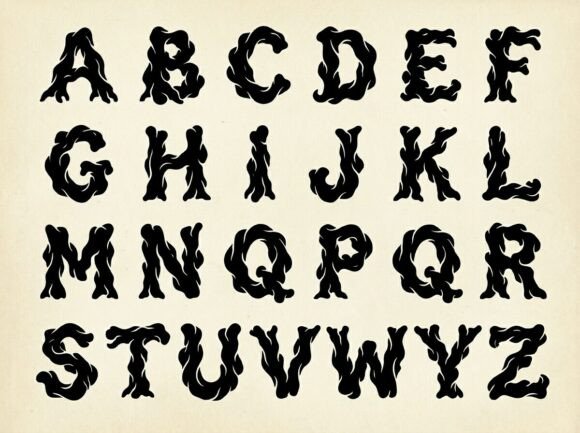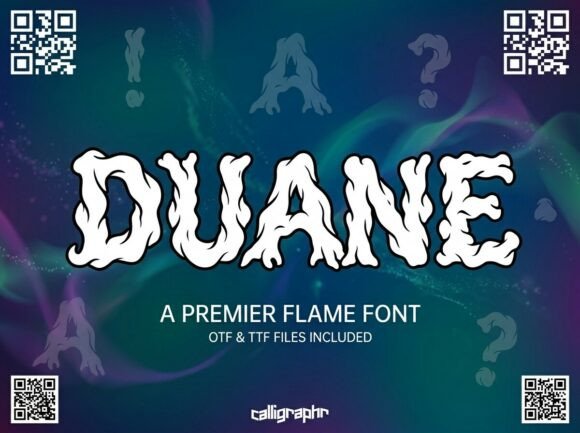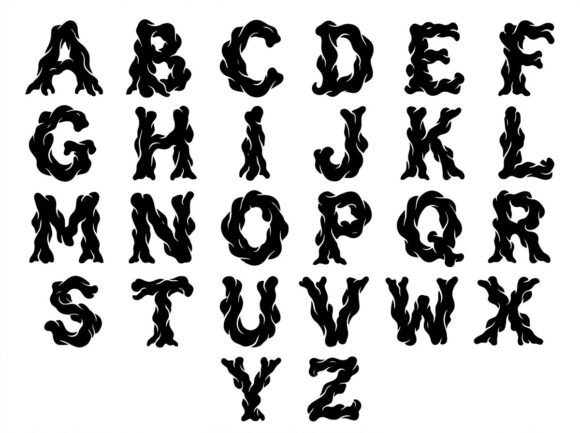
Ignite Your Creative Projects with Duane: A Premium Display Font
In the world of typography, a font can make or break a design. For creative projects that demand attention and exude energy, Duane, a premium display font, is the perfect choice. Characterized by its massive visual weight and liquid, “melting” silhouette, Duane is a bold typeface that features heavy, organic letterforms with soft, undulating outlines. This unique combination evokes a sense of fluid energy and psychedelic motion, making it an exceptional choice for designers and crafters looking to add a touch of creativity to their work.
The Unique Characteristics of Duane
Duane’s design is centered around its consistent weight and mesmerizing wavy contours. The font’s bold, organic letterforms are crafted to provide a sense of fluid energy, giving your designs a dynamic and vibrant feel. The soft, undulating outlines add a touch of sophistication, making Duane perfect for retro-inspired branding, high-energy apparel graphics, vibrant music festival posters, and bold digital headers.
Perfect for Retro-Inspired Branding
Duane’s unique design makes it an ideal choice for retro-inspired branding projects. The font’s bold, liquid silhouette and wavy contours evoke a sense of nostalgia, transporting your audience back to the vibrant and energetic world of the 60s and 70s. Whether you’re designing a logo, packaging, or advertising materials, Duane adds a touch of playfulness and creativity to your brand, making it stand out in a crowded market.
Elevate Your Apparel Graphics with Duane
For designers and crafters working on apparel graphics, Duane is a game-changer. The font’s bold, eye-catching design makes it perfect for t-shirts, hoodies, and other clothing items. The liquid silhouette and wavy contours add a dynamic touch to your designs, making them perfect for high-energy graphics that demand attention. Whether you’re designing for a streetwear brand or a music festival, Duane helps you create graphics that are both stylish and bold.
Make a Statement with Music Festival Posters
Music festivals are all about energy, excitement, and self-expression. Duane helps you capture the essence of these events with its bold, vibrant design. The font’s psychedelic motion and fluid energy make it perfect for creating eye-catching posters that grab attention and evoke a sense of excitement. Whether you’re designing for a rock festival, electronic music event, or a hip-hop concert, Duane adds a touch of creativity and energy to your posters.
Duane for Digital Headers
In the digital world, typography plays a crucial role in grabbing attention and communicating your message. Duane is an excellent choice for bold digital headers, helping you create a lasting impression on your audience. The font’s massive visual weight and liquid silhouette make it perfect for titles, headings, and other digital elements that demand attention. Whether you’re designing a website, social media graphics, or digital ads, Duane adds a touch of professionalism and creativity to your work.
Unleash Your Creativity with Duane
Duane is more than just a font – it’s a creative tool that helps you bring your ideas to life. With its unique design and versatile applications, Duane empowers designers and crafters to push the boundaries of typography and create something truly exceptional. Whether you’re aiming for an edgy, molten look or a modern fluid identity, Duane delivers a sense of brilliant creative character and professional power to every word.
Key Features of Duane
- Massive visual weight: Duane’s bold design makes it perfect for attention-grabbing headlines and titles.
- Liquid, “melting” silhouette: The font’s unique silhouette adds a touch of fluid energy and psychedelic motion to your designs.
- Soft, undulating outlines: Duane’s soft outlines add a touch of sophistication and elegance to your designs.
- Consistent weight: The font’s consistent weight ensures that your designs look cohesive and professional.
- Mesmerizing wavy contours: Duane’s wavy contours evoke a sense of dynamic energy and movement.
Duane is a premium display font that ignites creativity and adds a touch of professionalism to your designs. With its unique characteristics, versatile applications, and bold design, Duane is perfect for designers and crafters looking to create exceptional work. Whether you’re working on retro-inspired branding, high-energy apparel graphics, vibrant music festival posters, or bold digital headers, Duane delivers a sense of brilliant creative character and professional power to every word.